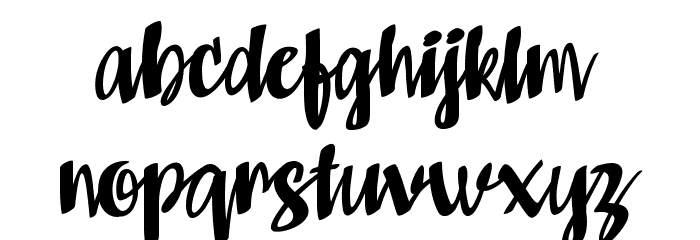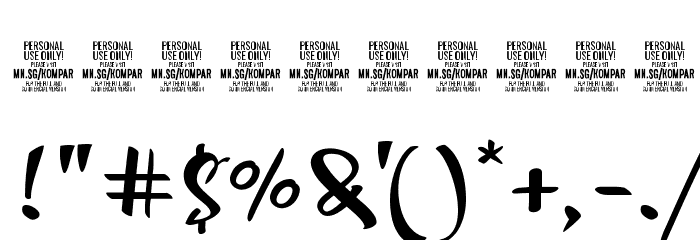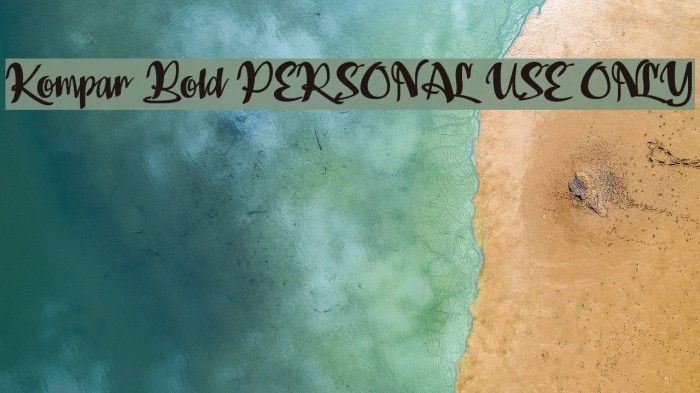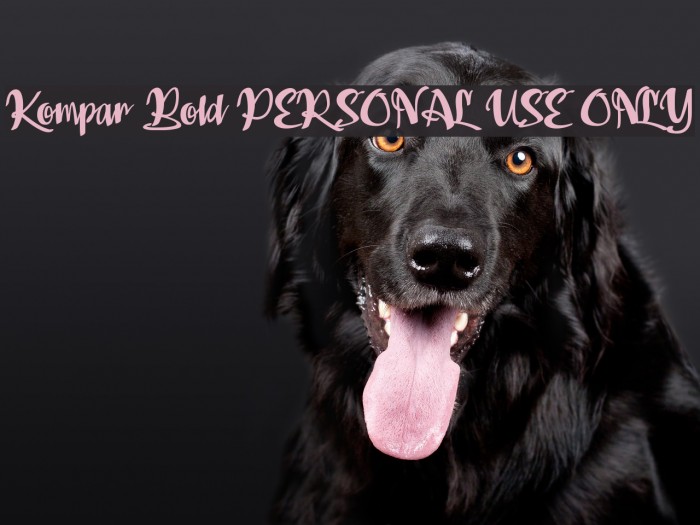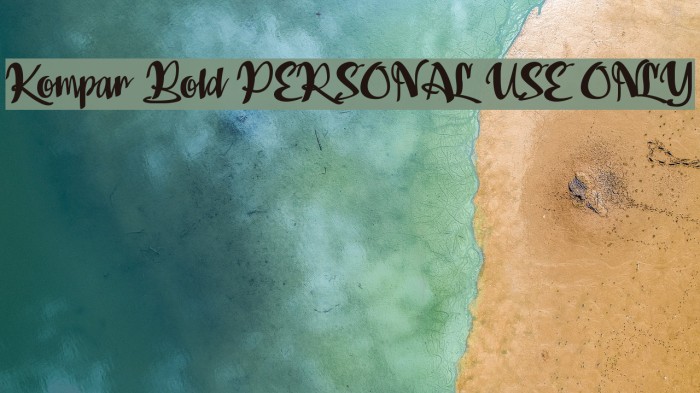
Kompar Bold PERSONAL USE ONLY Font
This font features a bold, dynamic script style with a strong presence. The uppercase letters have a unique flair, with sweeping curves and pronounced strokes that give them a sense of movement and energy. The lowercase letters maintain this fluidity, with a slightly more compact form that complements the uppercase. The numbers and special characters are consistent with the overall design, offering a cohesive look. This font is ideal for creating eye-catching headlines or logos that require a touch of elegance and boldness.
A bold, dynamic script font with sweeping curves and pronounced strokes.
- Proposed Projects: Ideal for branding, logo design, event invitations, and creative headlines.
- Category: Script